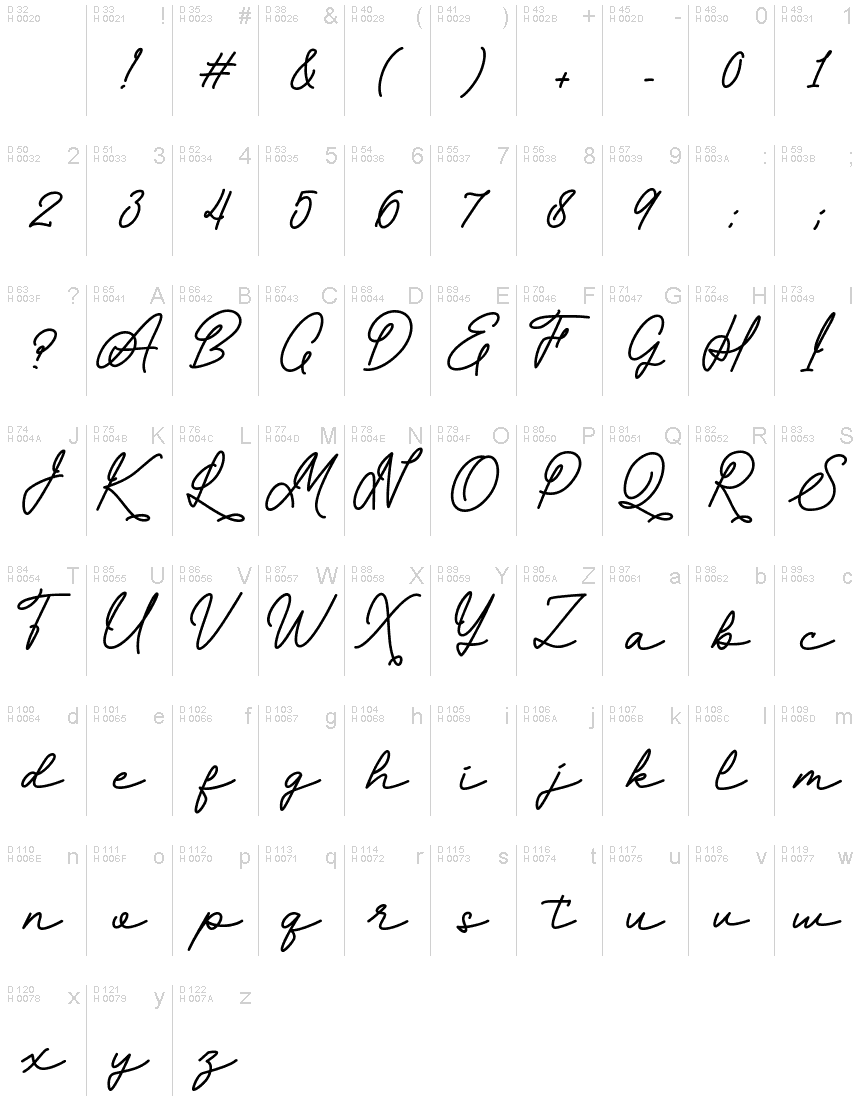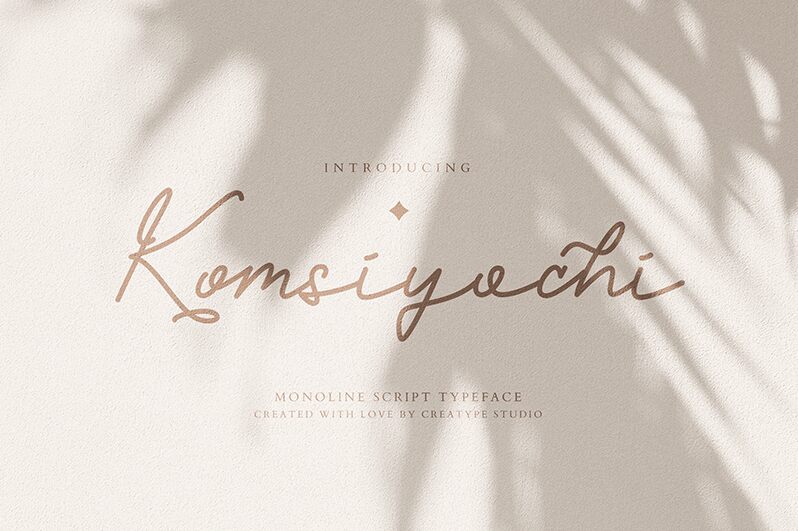
Komsiyochi Regular
Komsiyochi, designed by Creatype Studio, is the perfect handwritten font for projects looking to add a personal touch. With its light weight, this font is ideal for delicate designs such as wedding invitations, greeting cards and feminine branding. Komsiyochi's natural flow and hand-drawn feel will bring a sense of authenticity to any project. This versatile typeface can also be used for editorial design, social media graphics and packaging design. Add a unique touch to your next project with Komsiyochi's beautiful handwritten style.